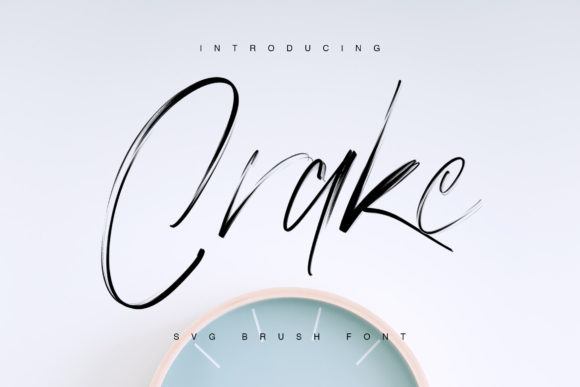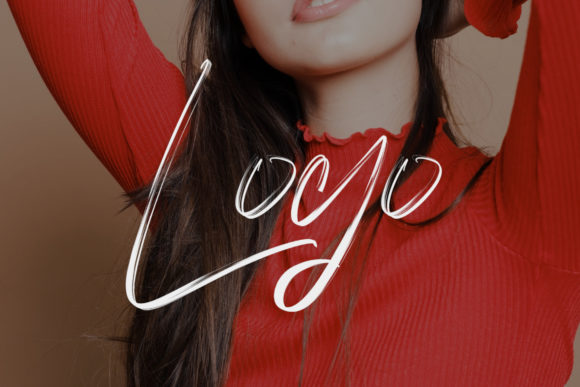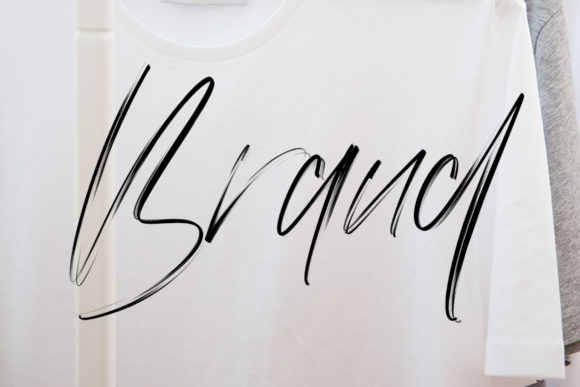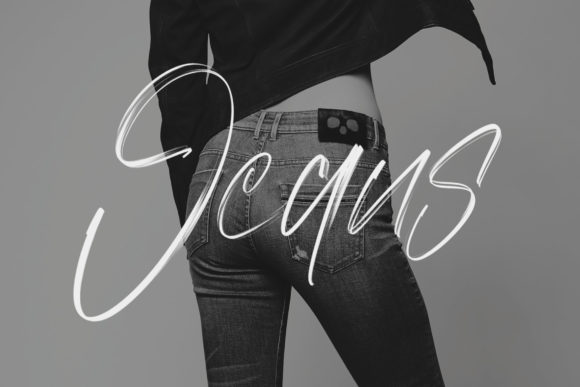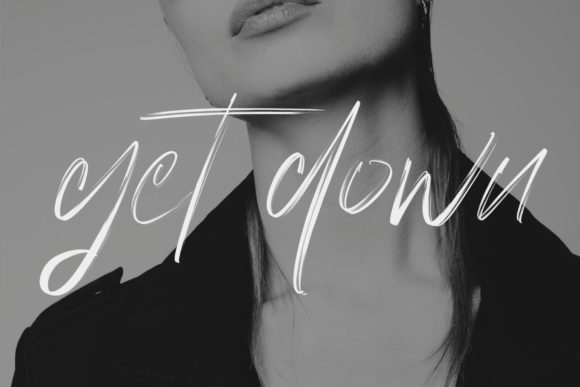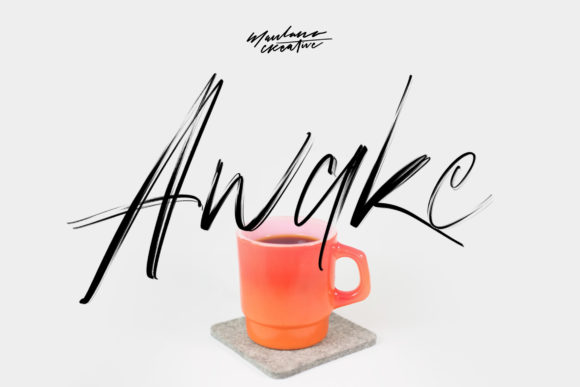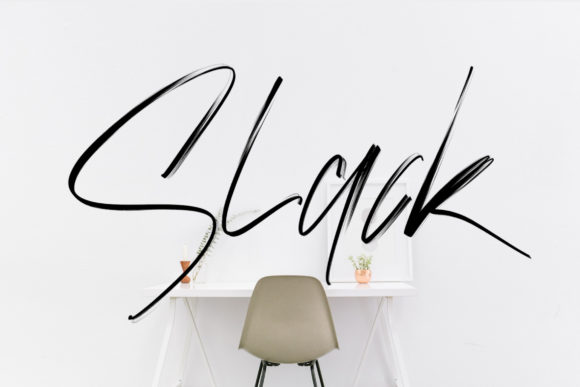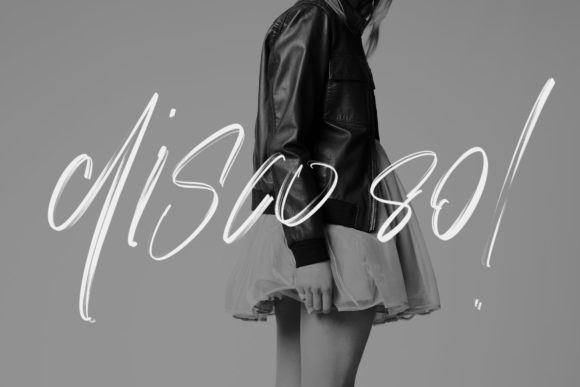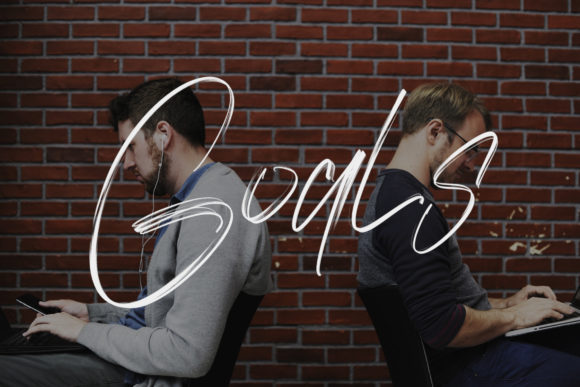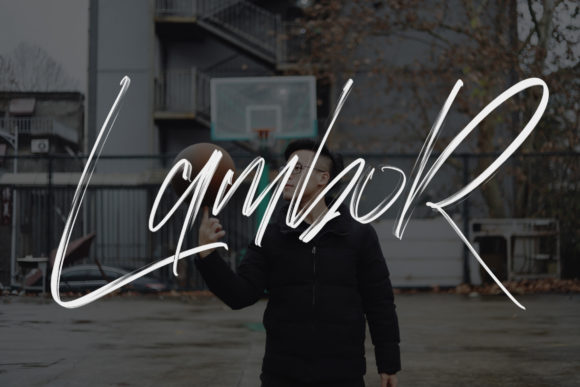
Crake Font
About Crake Font
Crake is an elegant brush style handwritten font. Use it to make your ideas even more realistic and create spectacular designs!